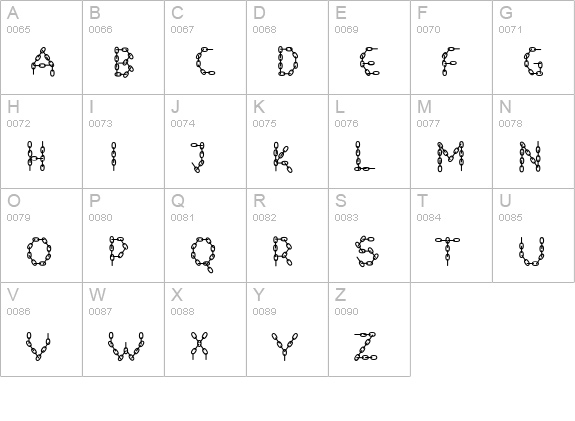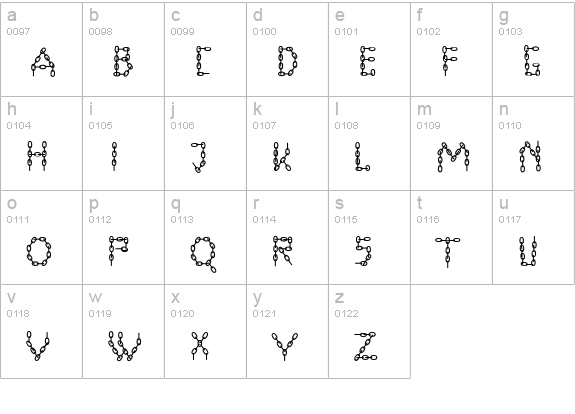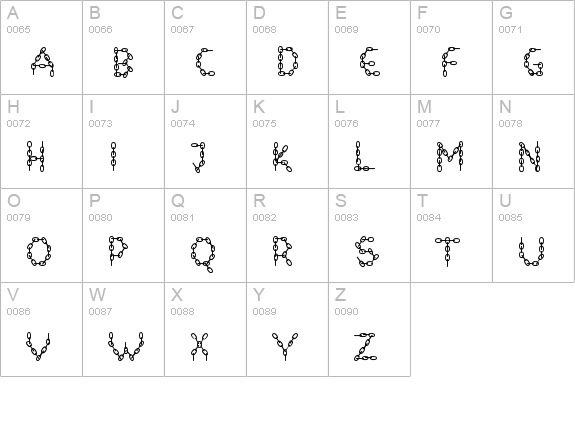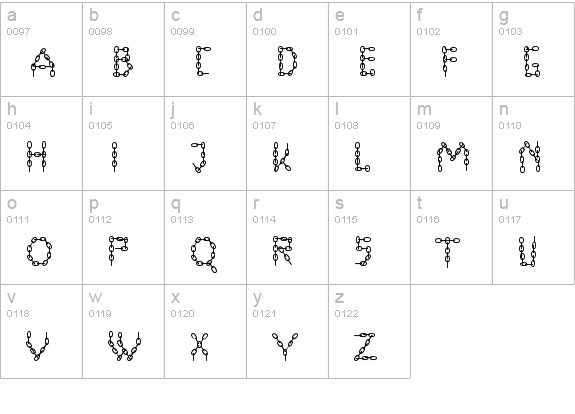
ChainLetterTwo Font Details
Introducing ChainLetterTwo font, a captivating and versatile typeface that exudes modern elegance and sophistication. With its sleek lines and stylish curves, this font is perfect for adding a touch of contemporary flair to any design project. ChainLetterTwo font is not only visually striking but also incredibly versatile, making it suitable for a wide range of applications, from branding and marketing materials to social media graphics and website design. Its clean and crisp appearance ensures excellent readability, while its unique character adds a touch of personality to any text. Best of all, ChainLetterTwo font is available for free download at FontsMarket.com. This means you can easily access this stunning font and elevate your design projects without breaking the bank. Don't miss out on this fantastic opportunity to enhance your creative work with the exquisite ChainLetterTwo font – download it today and unleash your creativity!